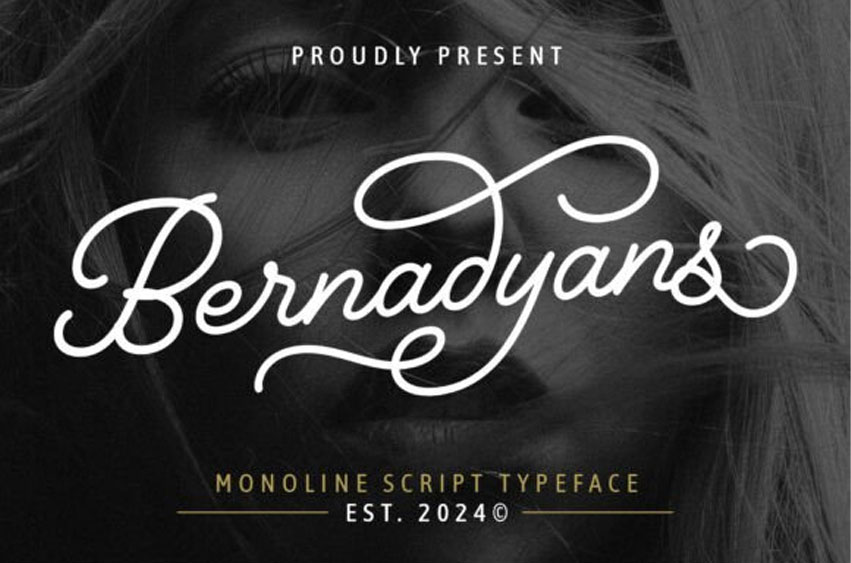
Bernadyans Font
Bernadyans Font is a graceful monoline script typeface that blends elegance and modernity. With fluid curves, stylish swashes, and a clean line weight, this font is perfect for branding, fashion logos, wedding invites, photography watermarks, and feminine product packaging.
Designed with a smooth flow and high legibility, Bernadyans offers a refined look without being overly formal—ideal for stylish creatives who want a soft and personal touch.